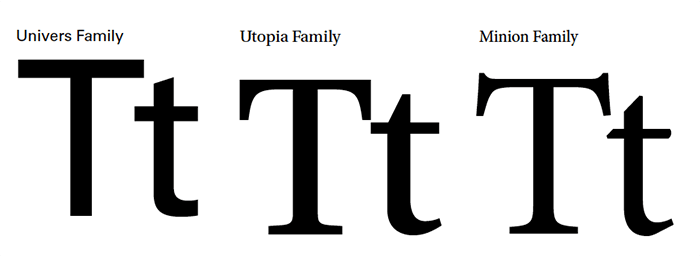
Utopia Font Family
This demanded versatility so slimbach created a font family with cuts.
Download utopia regular font free in ttf format for windows and mac. 008adbeutopiastd semiboldsubhutopia std semibold subheadotf 1. Utopia created by robert slimbach and presented by adobe in 1992 was intended to solve a number of typographic problems related to office correspondence.
The utopia font family is an adobe originals didone serif typeface that was designed by adobe systems employee robert slimbach in 1989. It combines the vertical stress and pronounced stroke contrast of eighteenth century transitional types like baskerville and walbaum with contemporary innovations in character shapes and stroke details. Utopia 20 reviews categories various dingbats font unicode files.
About this font family utopia is an adobe originals text face designed by robert slimbach in 1989. Adobe fonts is the easiest way to bring great type into your workflow wherever you are. Matplotlib matplotlib dejavu serif.
Custom fonts preview save settings utopia blackotf utopiaexp blackotf utopia blackosfotf utopia bolditalicotf. Explore utopia designed by robert slimbach at adobe fonts. The utopia font family is a didone serif typeface that was created by robert slimbach and released in 1989.